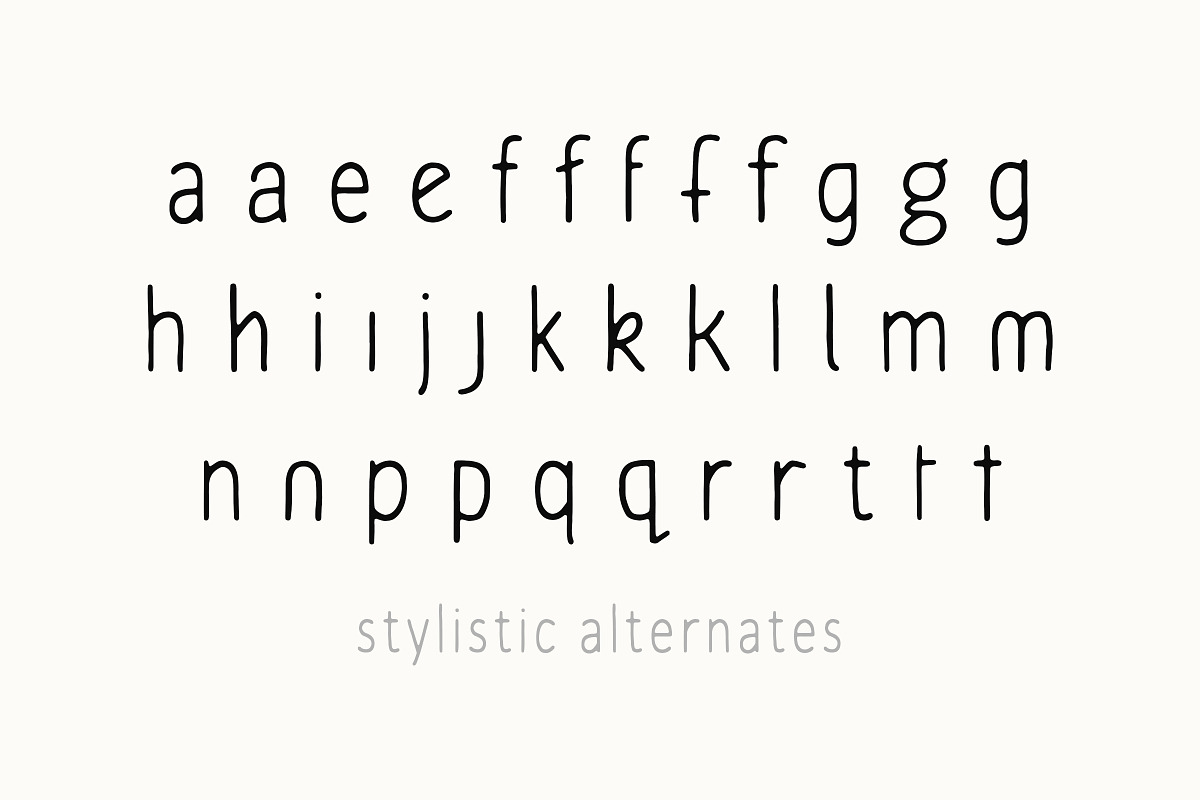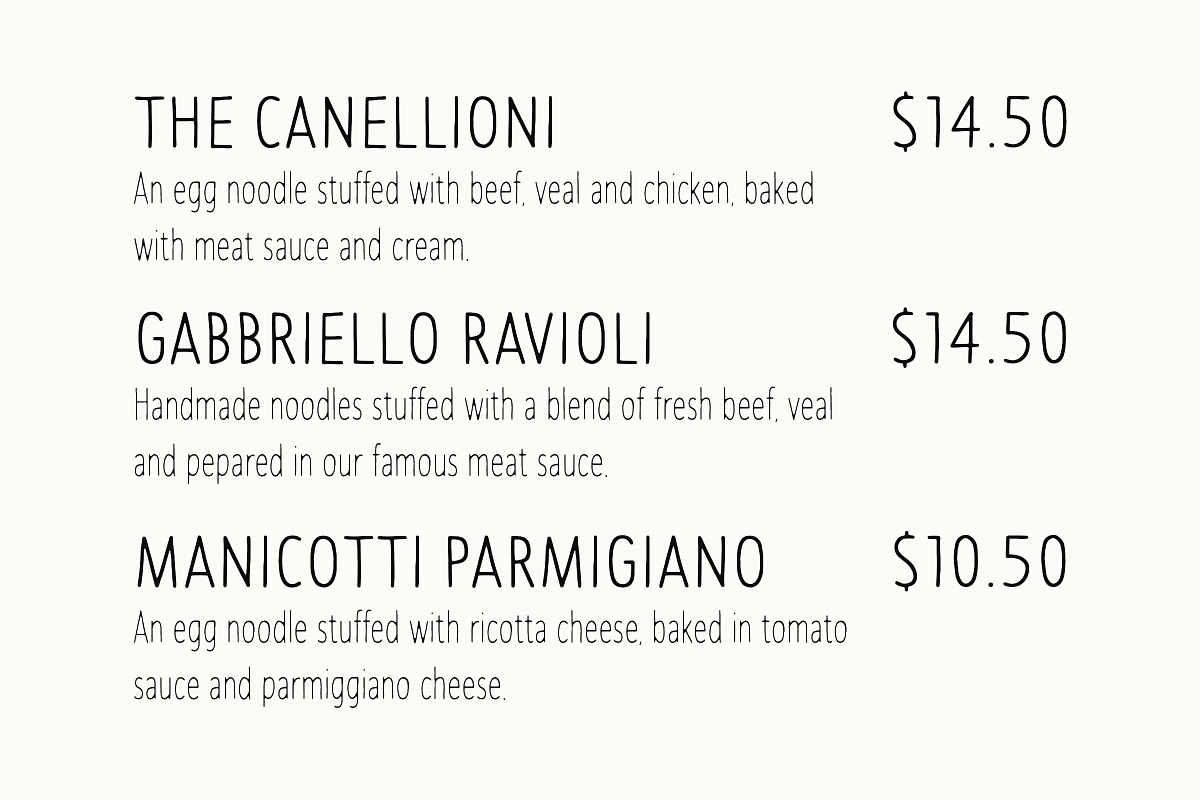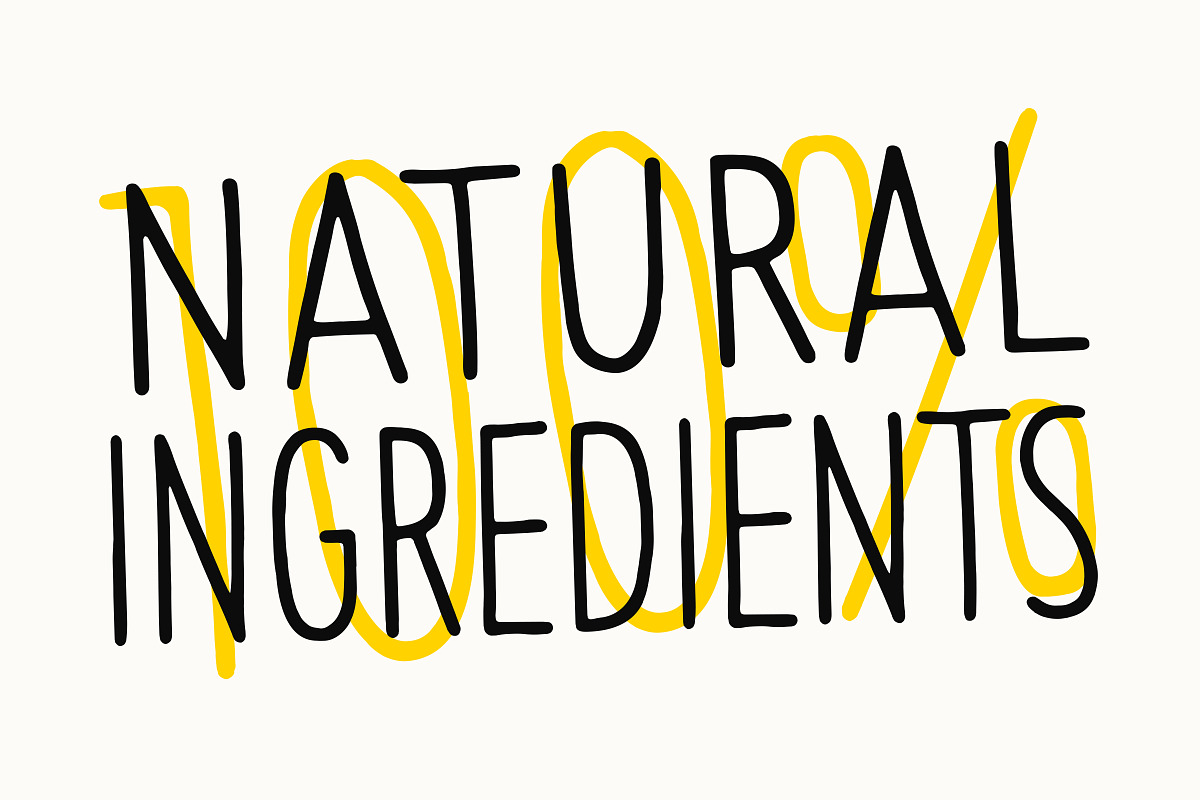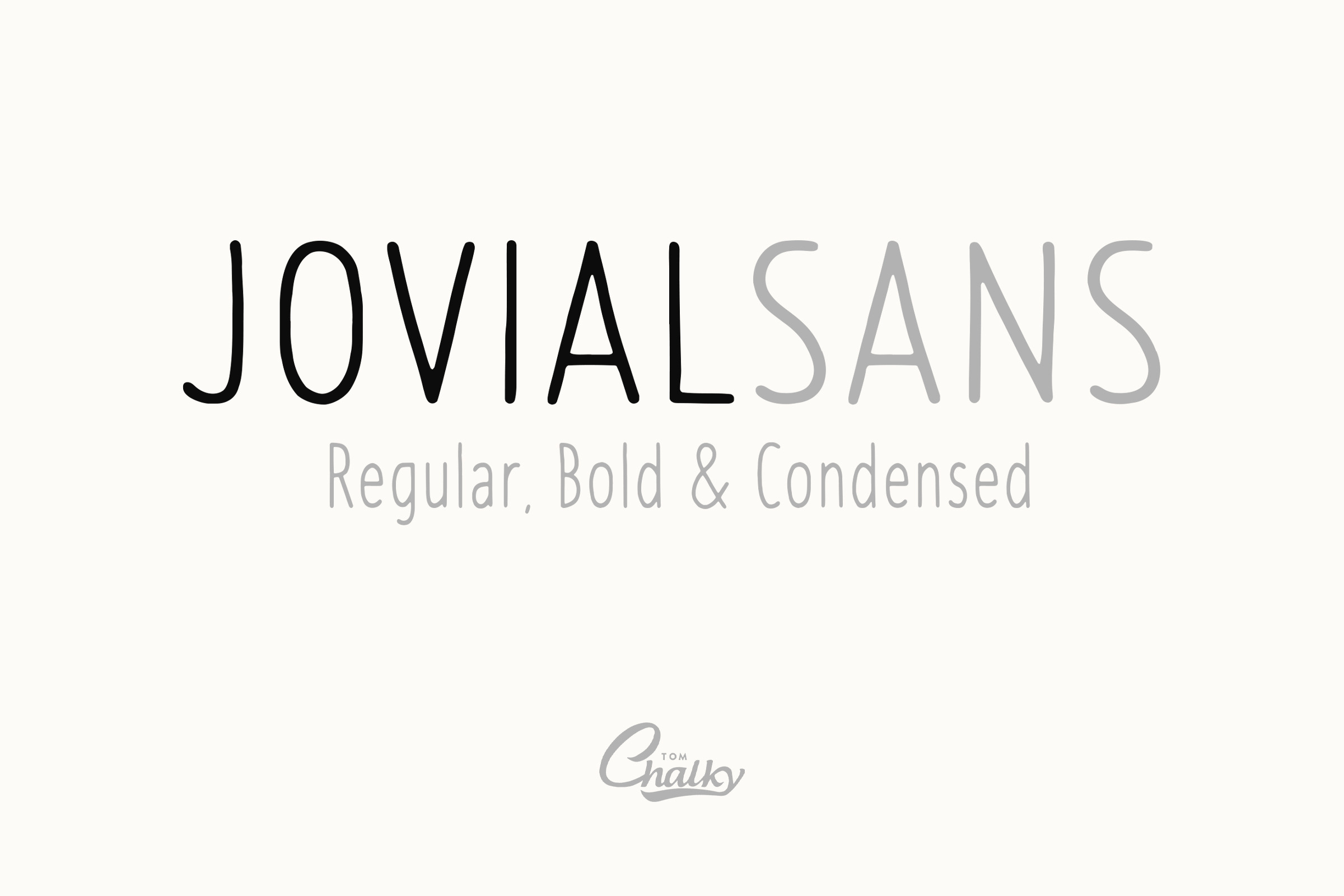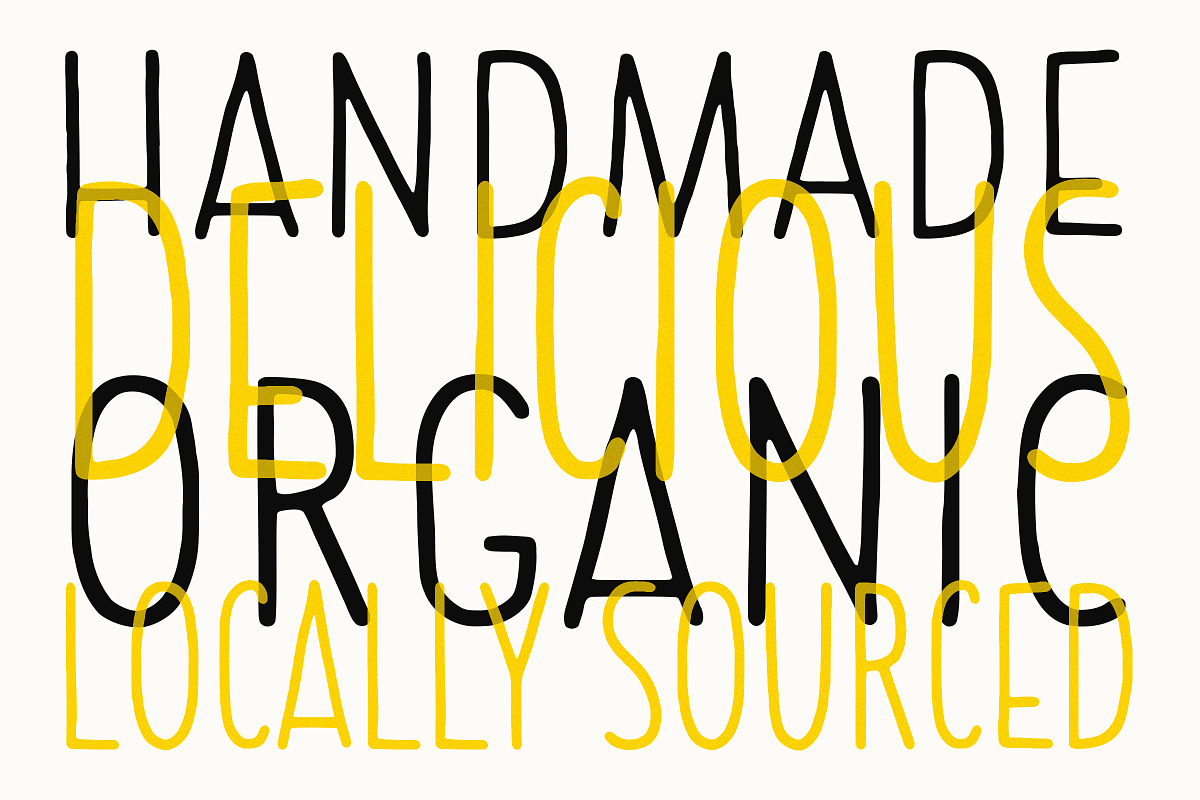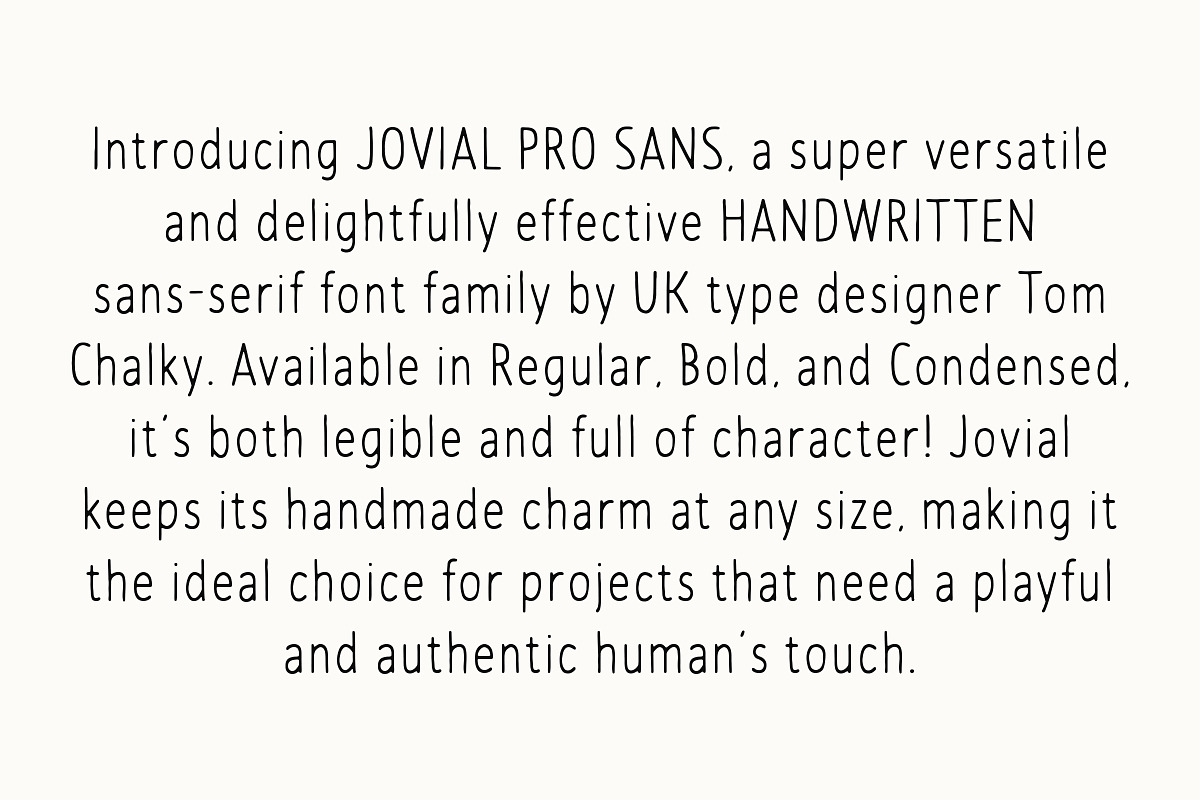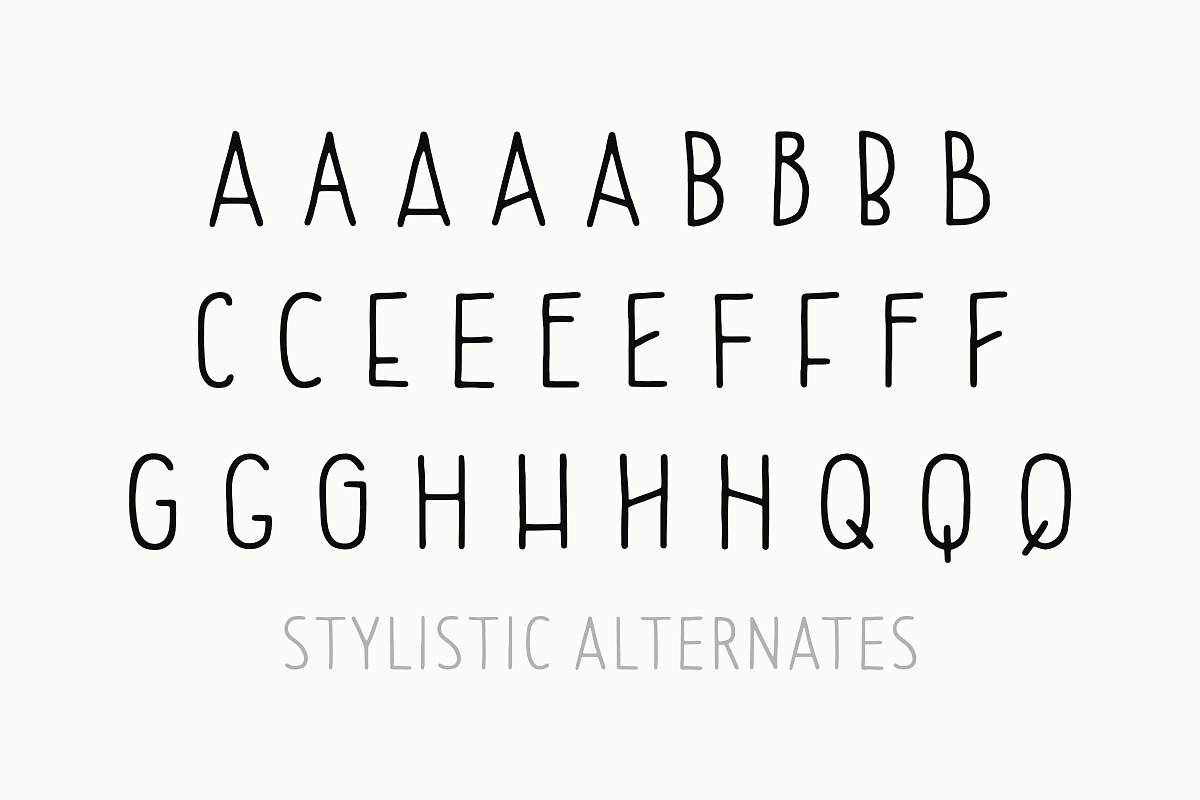
Jovial Sans Pro - Handwritten Fonts
Introducing Jovial Sans - A Friendly, Handwritten Typeface with Character
Jovial Sans is a playful, handwritten typeface designed to bring warmth and personality. With its quirky letterforms and organic flow, this font is perfect for projects that need a personal touch without compromising on readability.
Available in Regular, Bold, and Condensed styles, it offers flexibility for everything from menus and packaging to logos and posters. Jovial Sans is both inviting and versatile, adding an authentic, handcrafted vibe that feels professional yet casual. Whether you're working on branding, a digital design, or a fun editorial, this font has you covered.